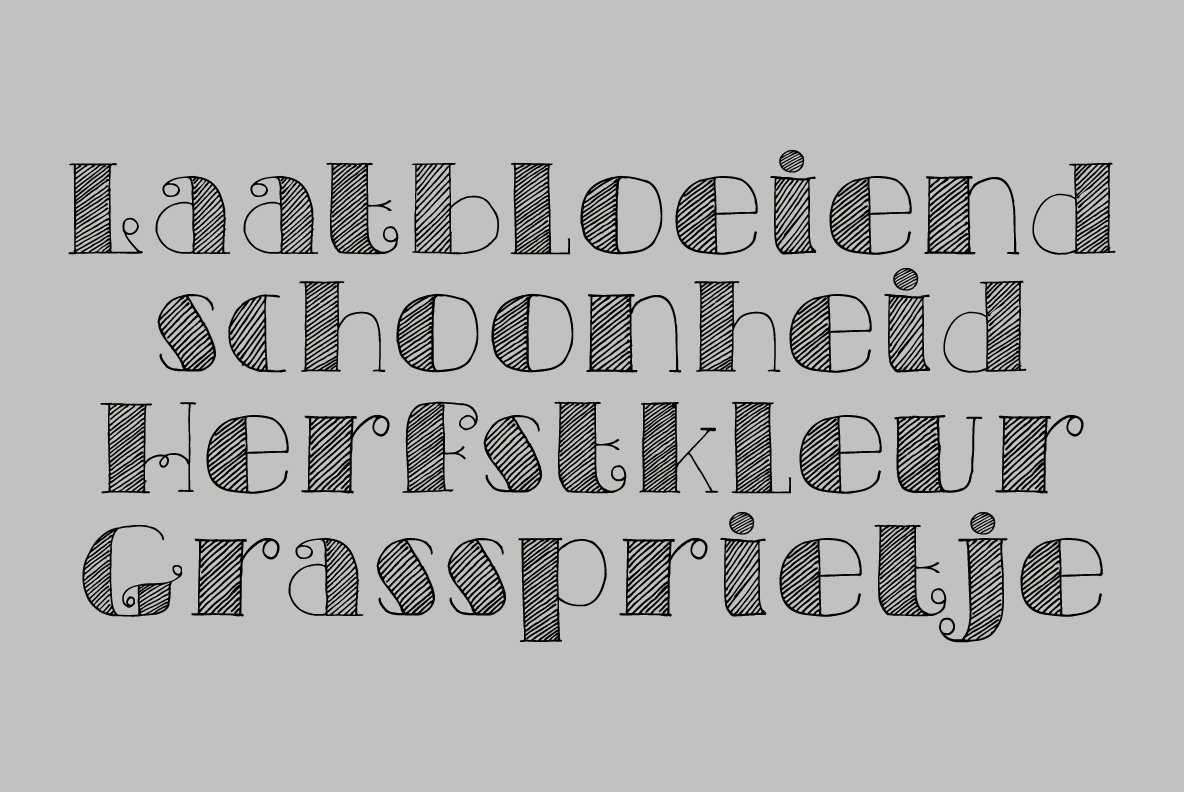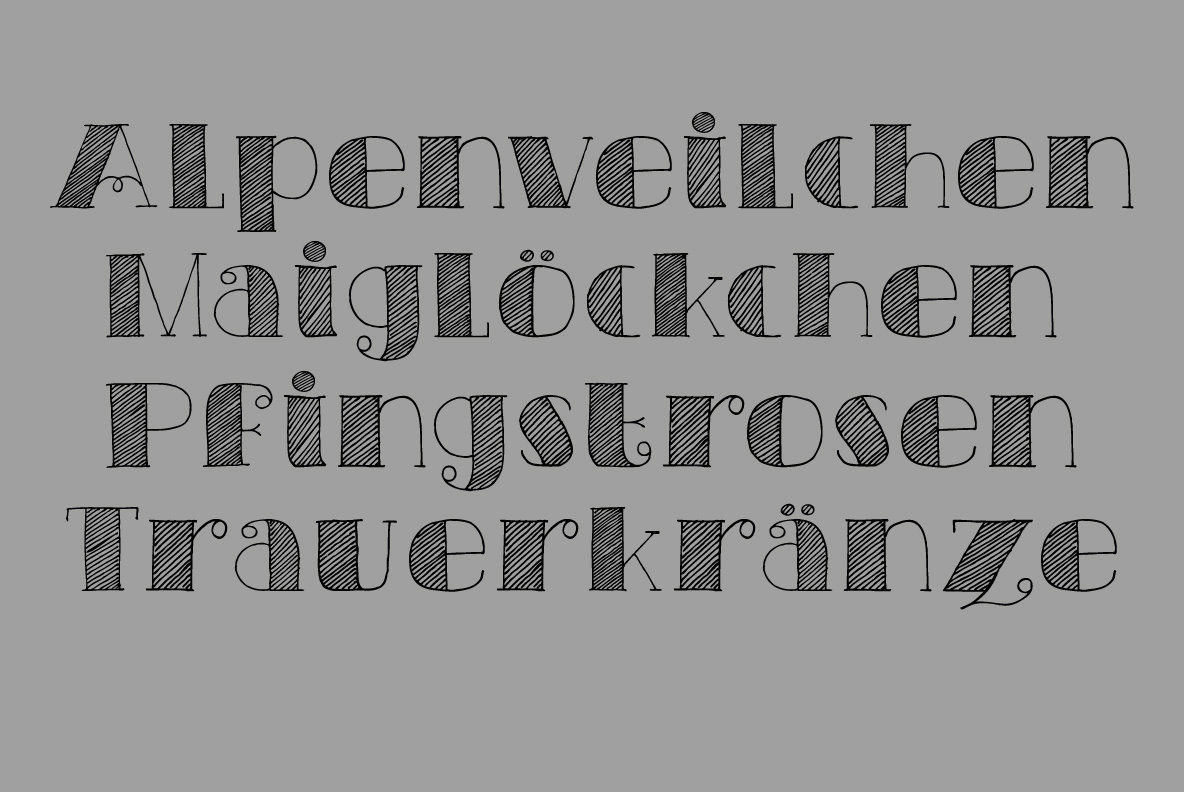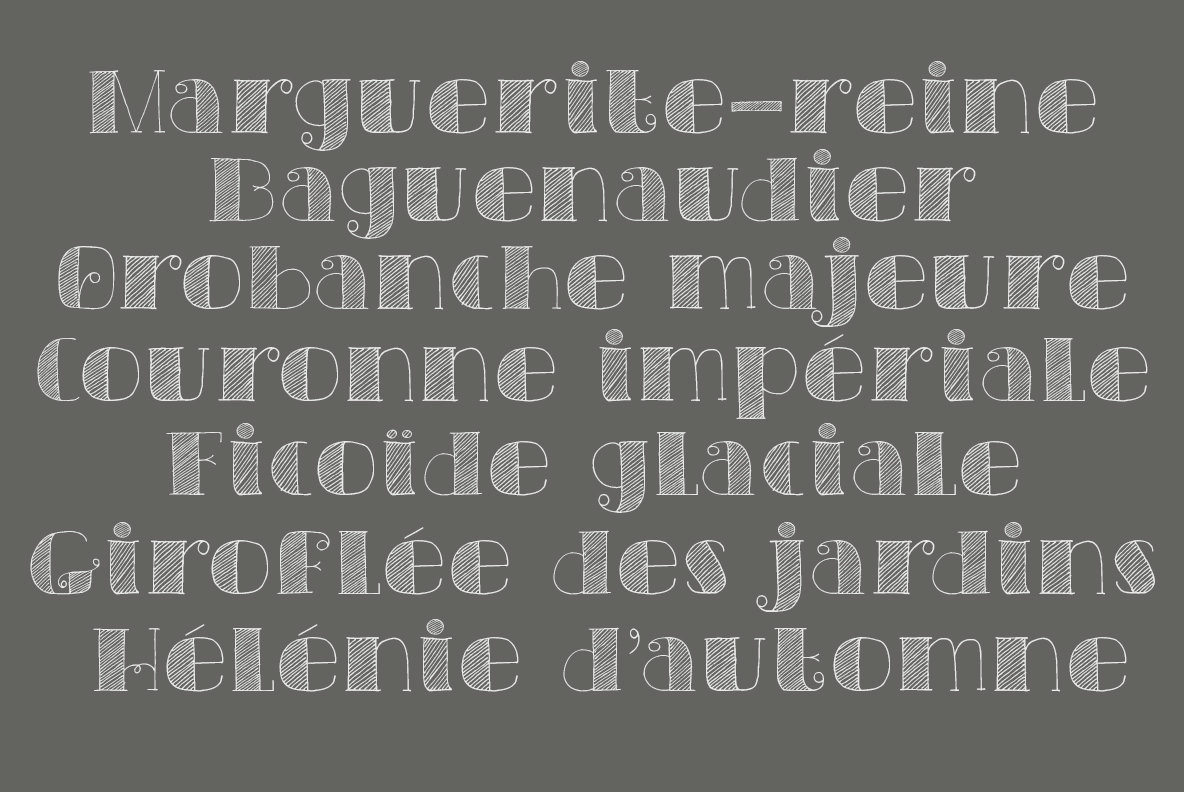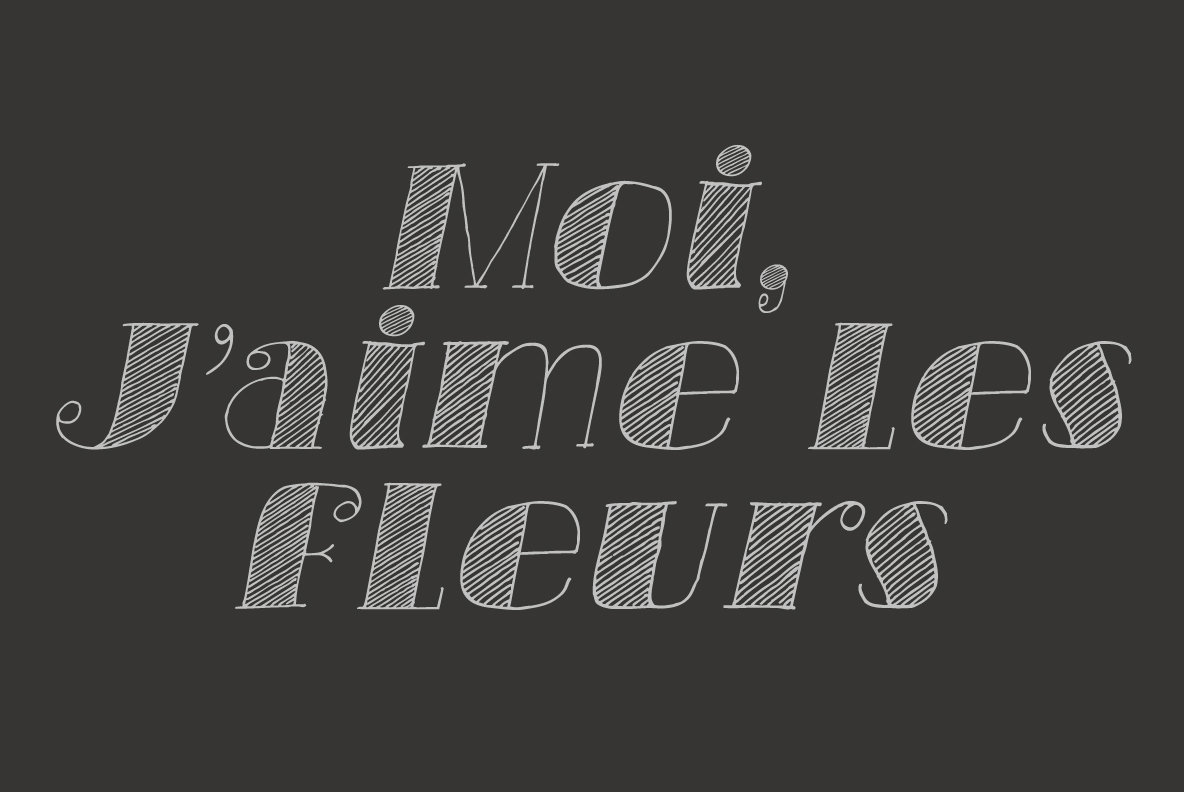
Carte Blanche Font
Carte Blanche
Carte Blanche Italic
Carte Blanche literally means 'Blank Ticket'. Yeah, yeah, it is also a very 007-ish catchphrase, but I wanted to give this elegant font a 'stylish' name and Carte Blanche popped up.
All glyphs were hand drawn on a rather expensive piece of heavy-weight paper and were put into the font in between changing nappies, bouts of the flu and the subsequent wiping of snotty noses.
Carte Blanche speaks most Roman-based languages - albeit nasally…